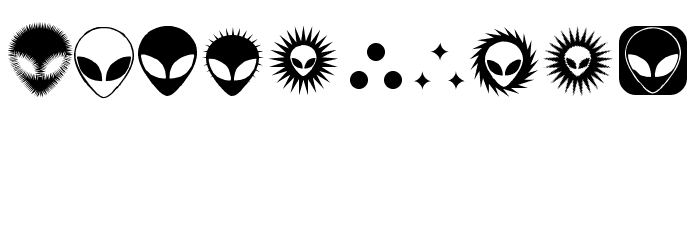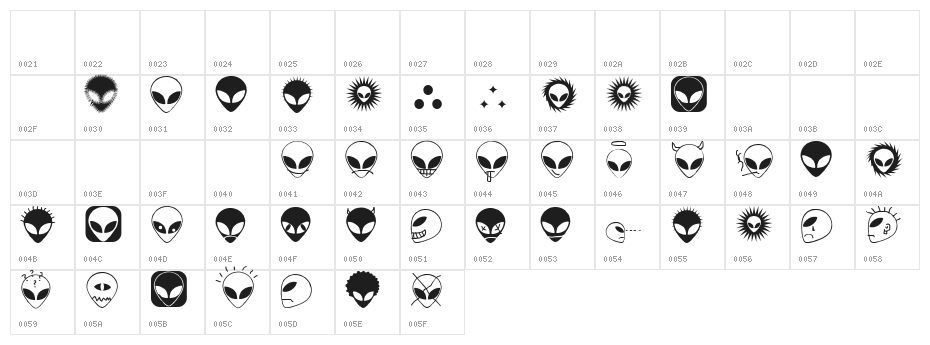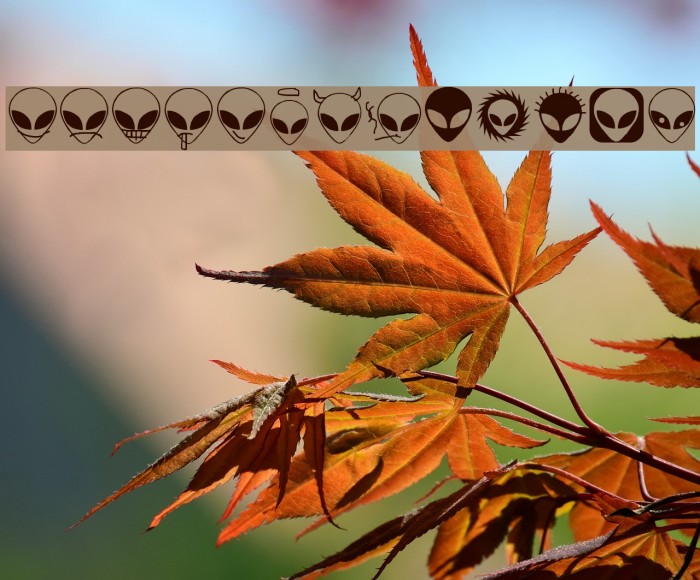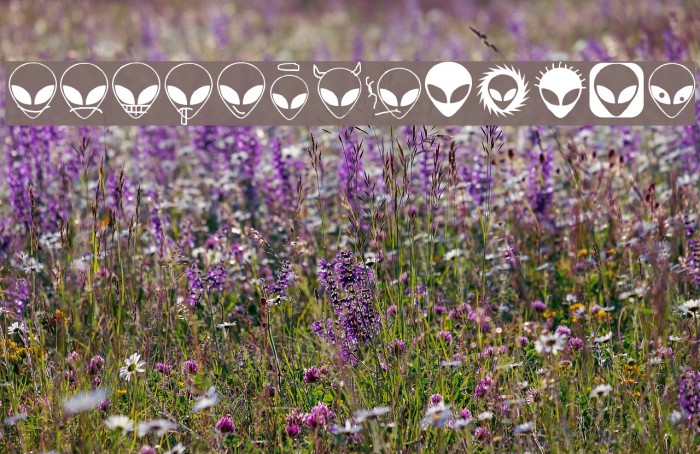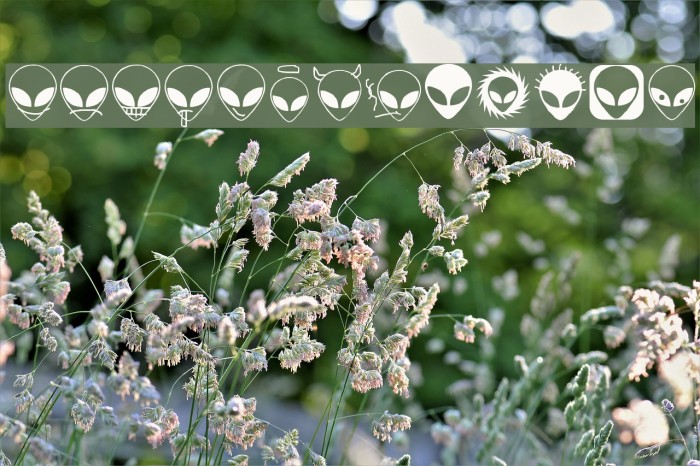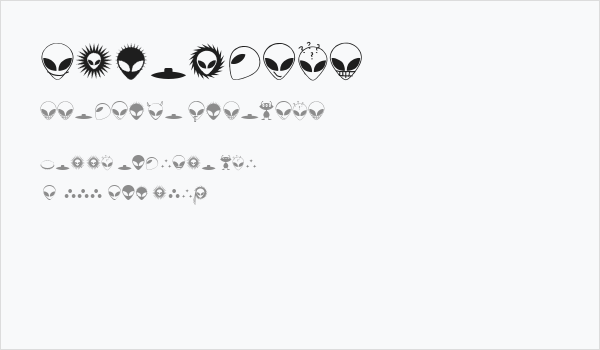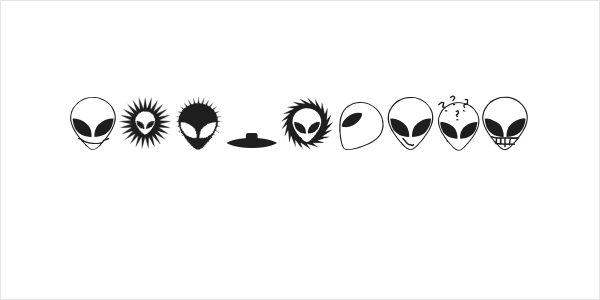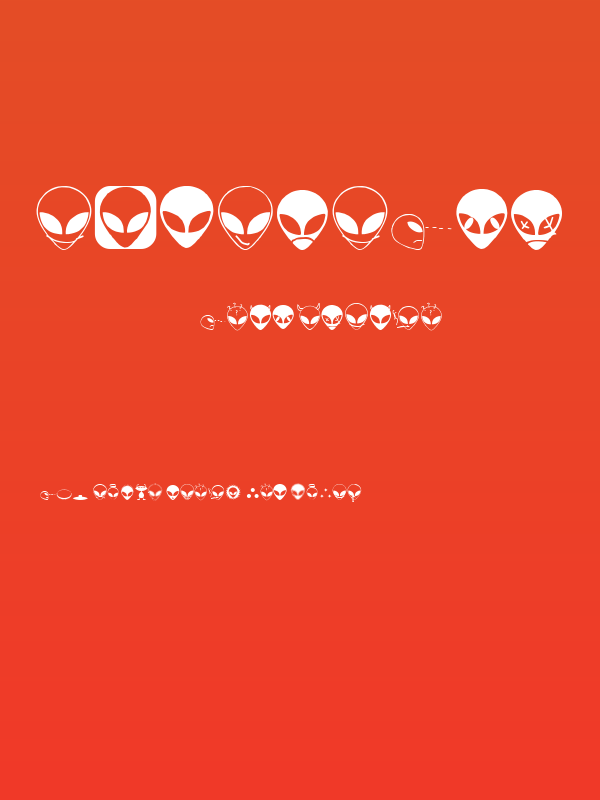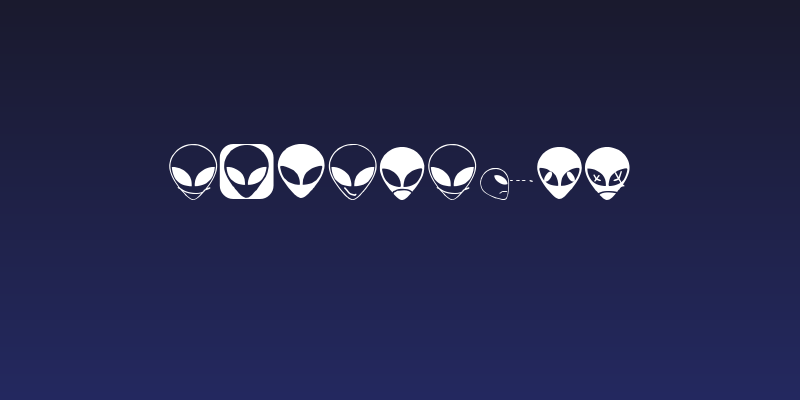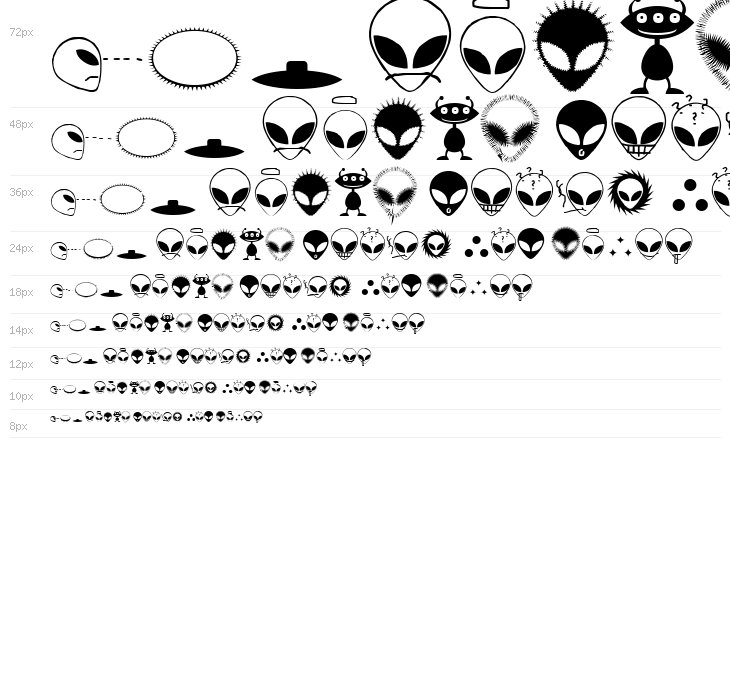
Alienator Font
Alienator Description
This collection features a series of alien-themed icons, each with unique expressions and accessories. The designs are playful and imaginative, incorporating elements like antennas, halos, and various facial expressions. The icons are bold and graphic, with a mix of solid black and outlined designs. The style is distinctly decorative, making it suitable for creative projects that require a whimsical or extraterrestrial theme.
| Use Case | Logos, Decorative elements, Themed graphics |
| Proposed Projects | Ideal for use in sci-fi themed graphics, children's books, novelty merchandise, or as decorative elements in digital media. |